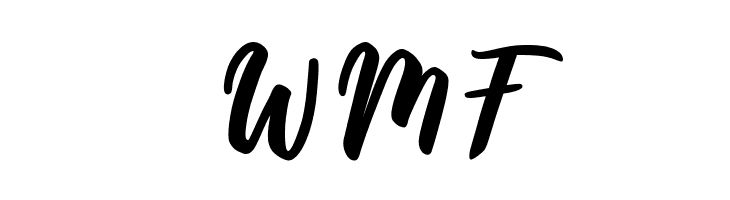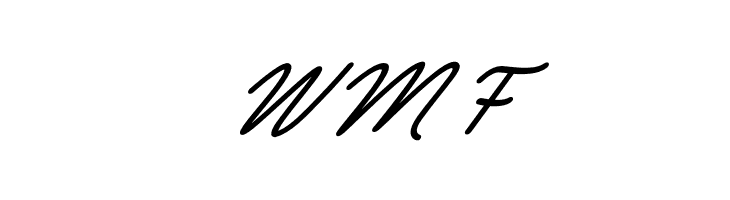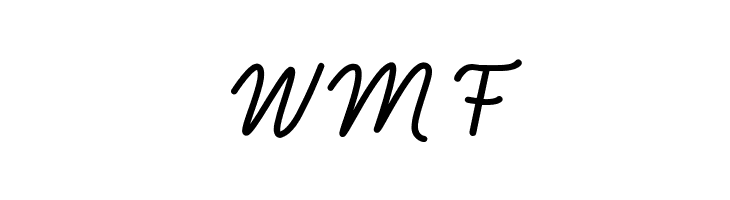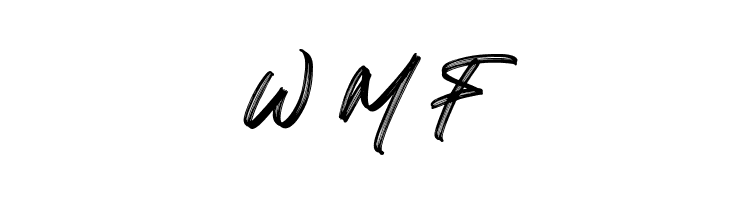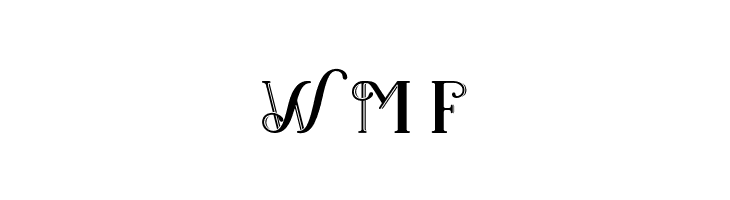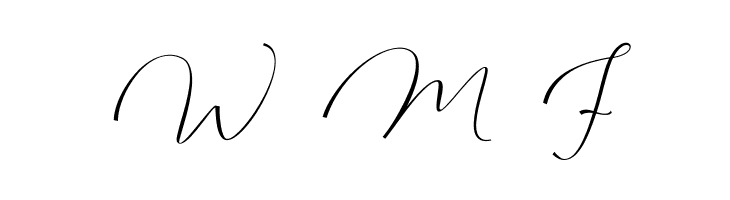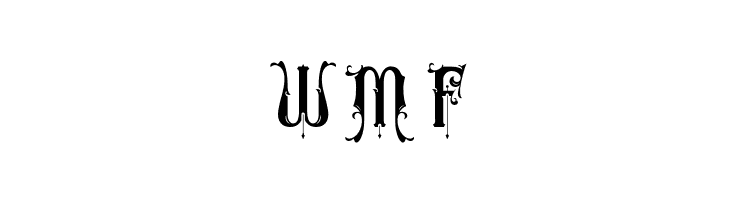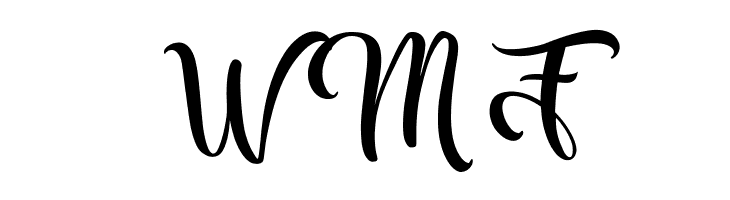
An elegant, flowing script font with intricate loops and flourishes.
A bold, elegant script font with interconnected, flowing characters.
A flowing, elegant script font with interconnected characters and medium contrast.
A bold, elegant script font with fluid, interconnected strokes.
A bold, brush-style font with dynamic strokes and a hand-painted look.
An ornate and decorative font with intricate swirls and bold strokes.
An elegant script font with flowing, interconnected letters and ornate flourishes.
An artistic script font with flowing, interconnected letters and decorative uppercase characters.
An ornate Victorian-style font with intricate flourishes and decorative elements.
An elegant and flowing script font with artistic flourishes.